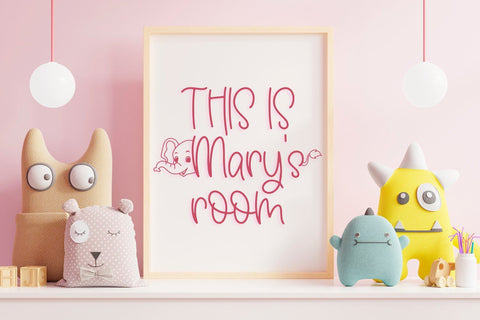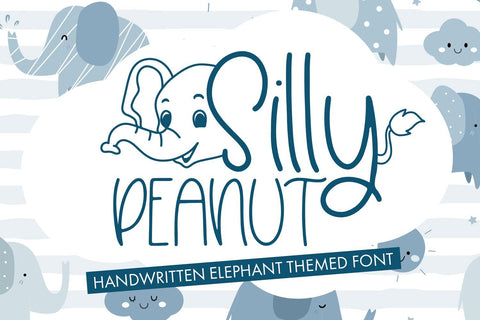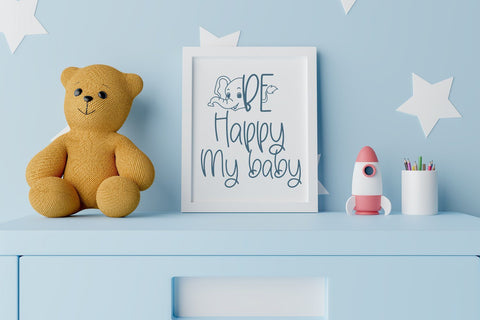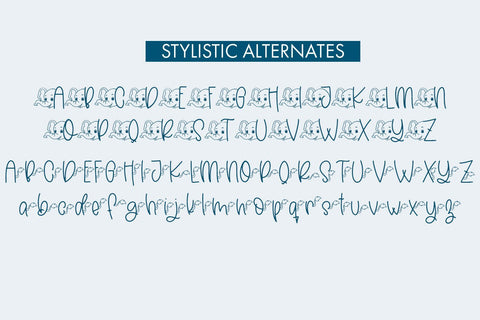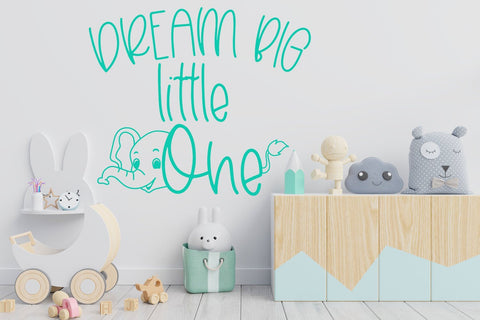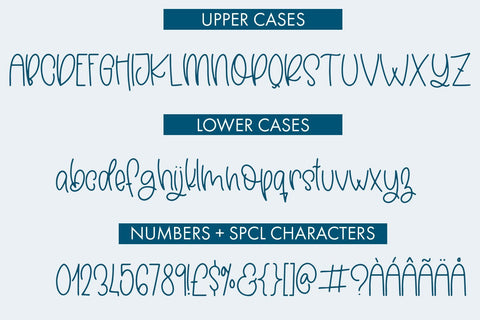
Silly Peanut
Silly Peanut - Handwritten Elephant Themed Font
Silly Peanaut is a fun and playful elephant themed handwritten font. You will get two different stylistic alternates for upper case letters and one set of alternates for the lower cases. This font is perfect for all you Elephant lovers and would look especially cute on DIY projects for kids.
You can access the standard font via A-Z and a-z. The remaining 3 designs are available as stylistic alternates for upper cases and lower cases. This font can be used for anything such as T-Shirt designs, phone cases, greeting cards, invitations, mugs and so much more! Be creative but most importantly have fun!
- Silly Peanaut - Comes with Uppercase A-Z and lowercase a-z letters, 0-9 numbers, stylistic alternates, limited punctuation and supports Western European Languages